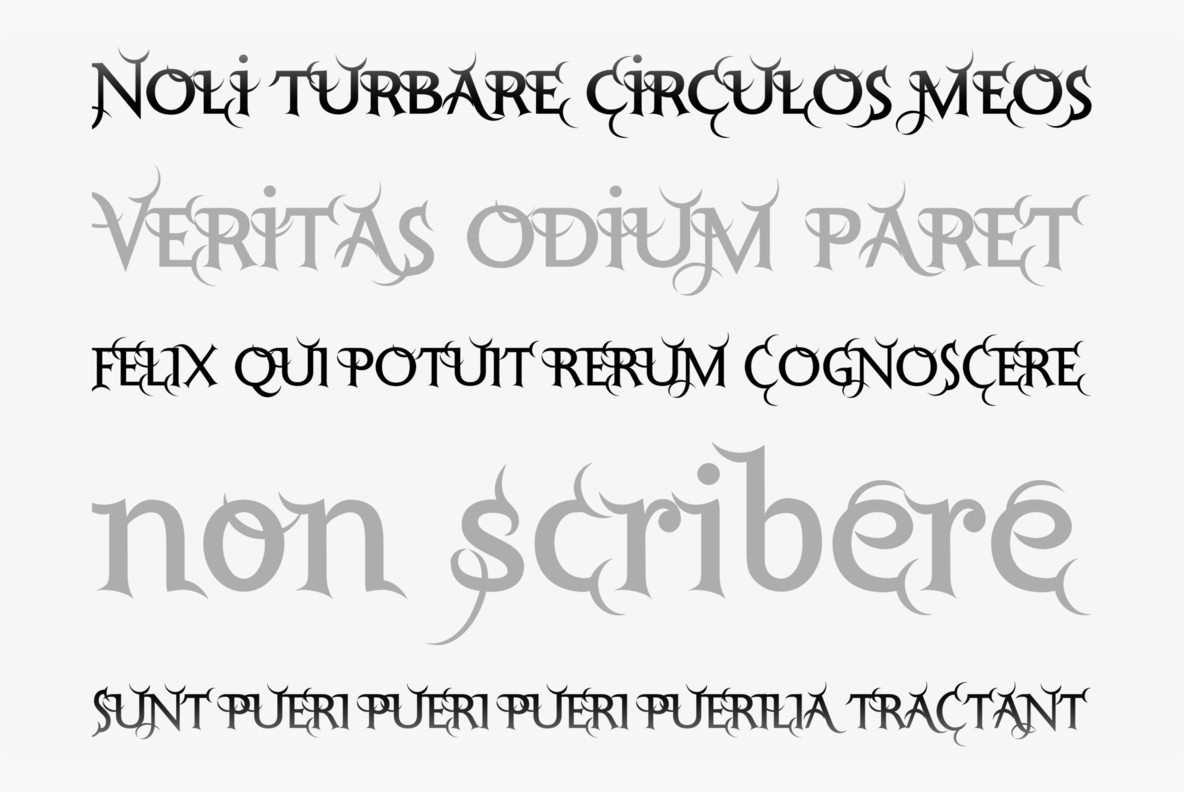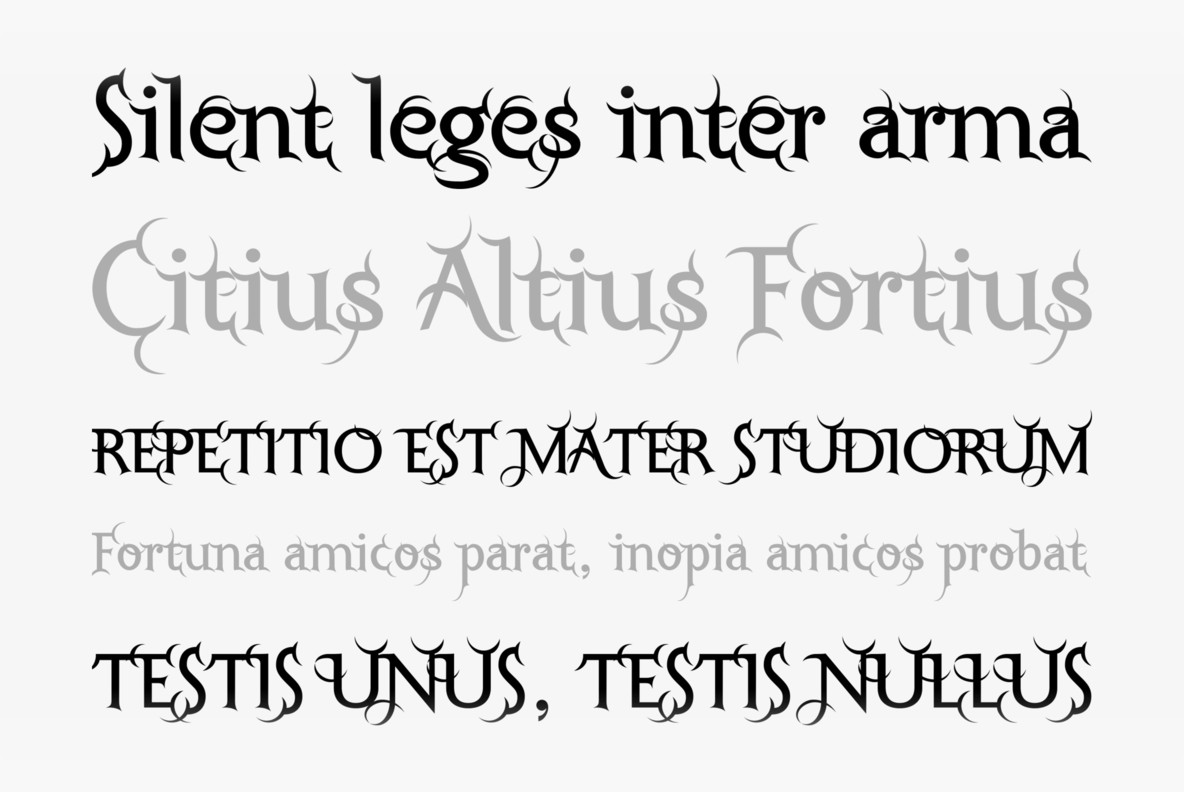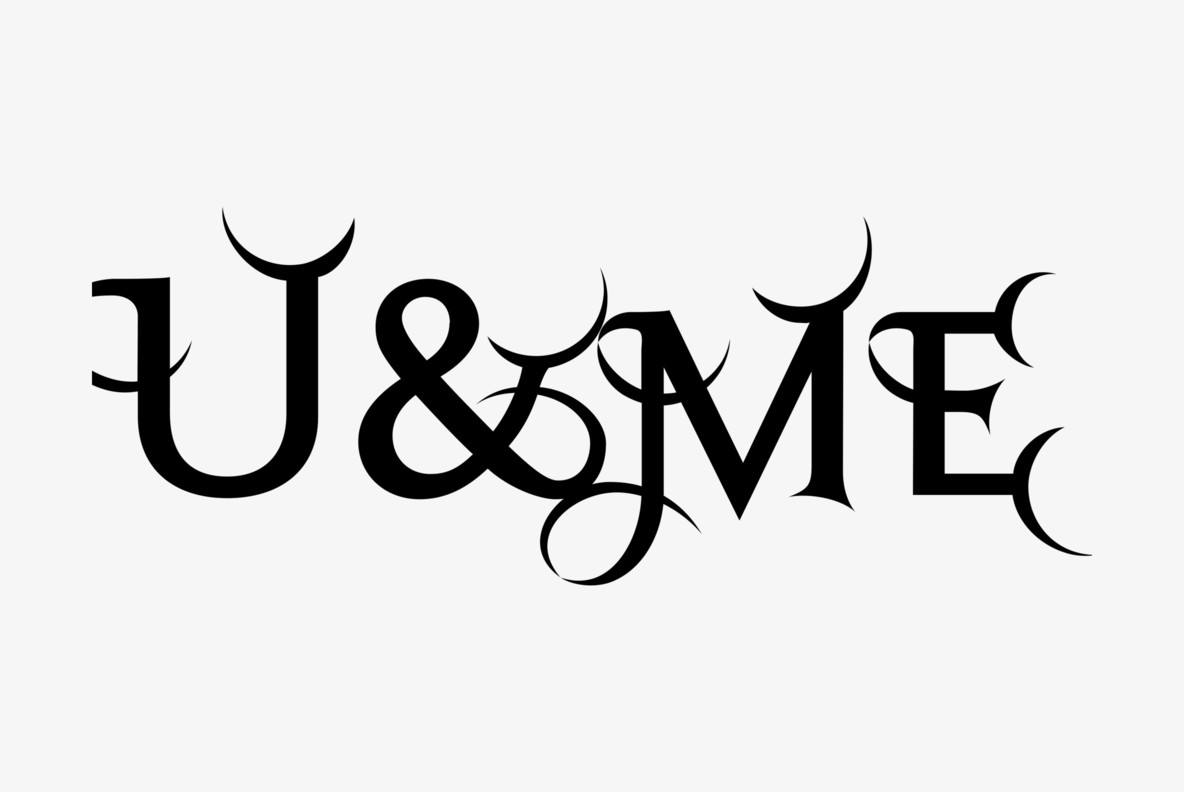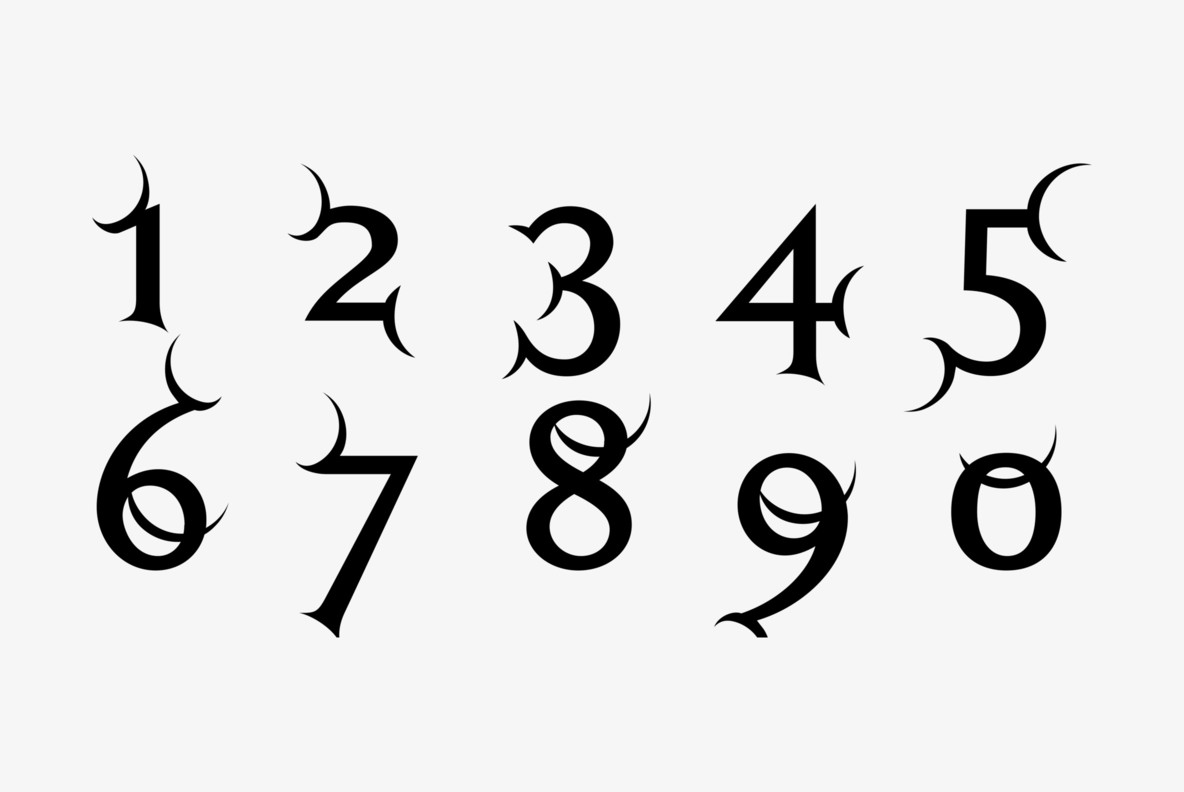
Lunix Font
The basic idea behind Lunix was a half-moon-serif. Hence the name that is derived from “Luna” the ancient greek goddess of the moon.
The serifs pretty soon developed their own life and started to grow and curl. Now all of a sudden the font became a very spiky affair.
To make things worse, I designed a Small-Caps version that was even spikier. There are strange thoughts that come to my mind when I look at the font. Dracula, Nostradamus, barb wire, Punkrock, the thorn crown of Jesus, stiletto heels, switchblades and so on.